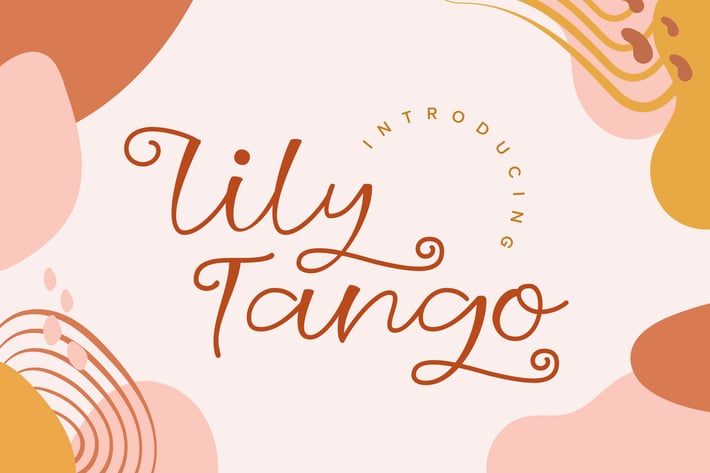
Lily Tango - Display | Script | Logo Font
Lily Tango is a font created with script style and to fit to use as logo or branding project. It features a unique style and will add a feminine feel to your upcoming projects. Get inspired by its unique feel and use it to create brand logo, product packaging or posters and many more!
Special Character/ Alternate Glyphs included